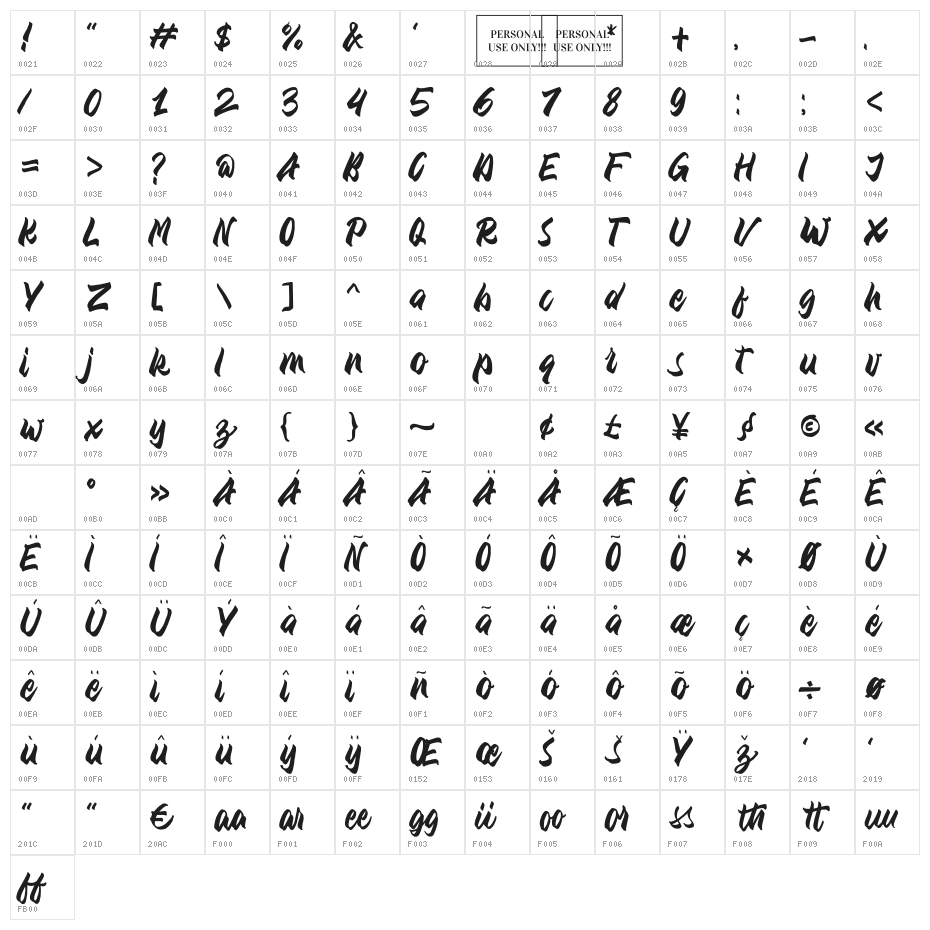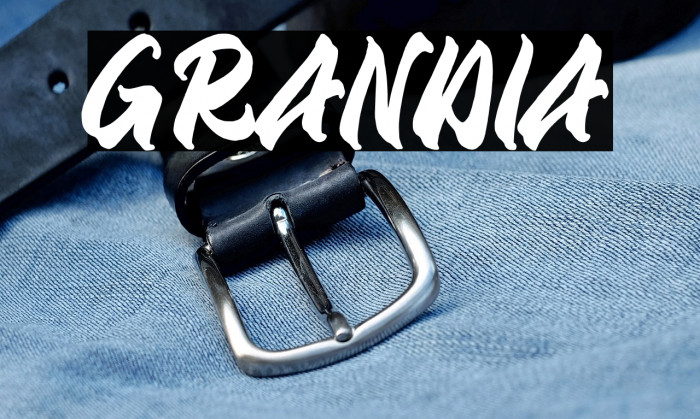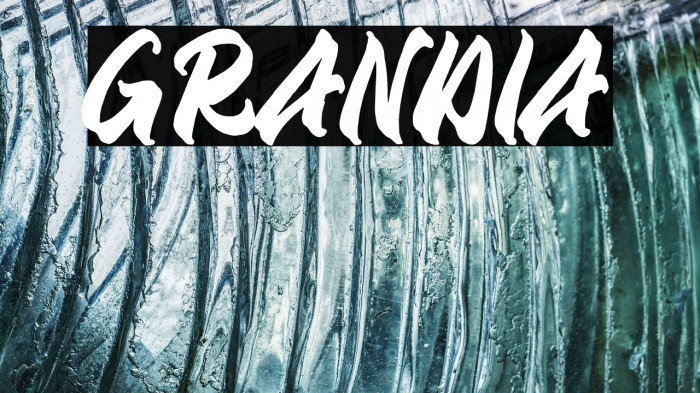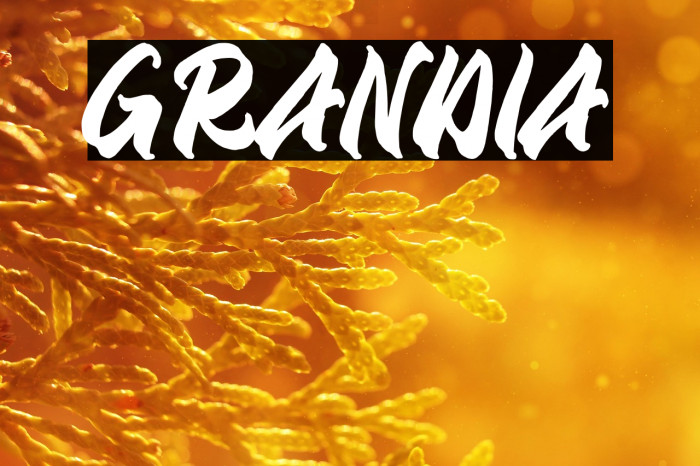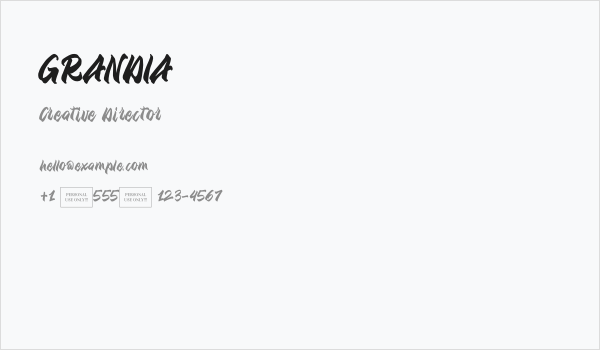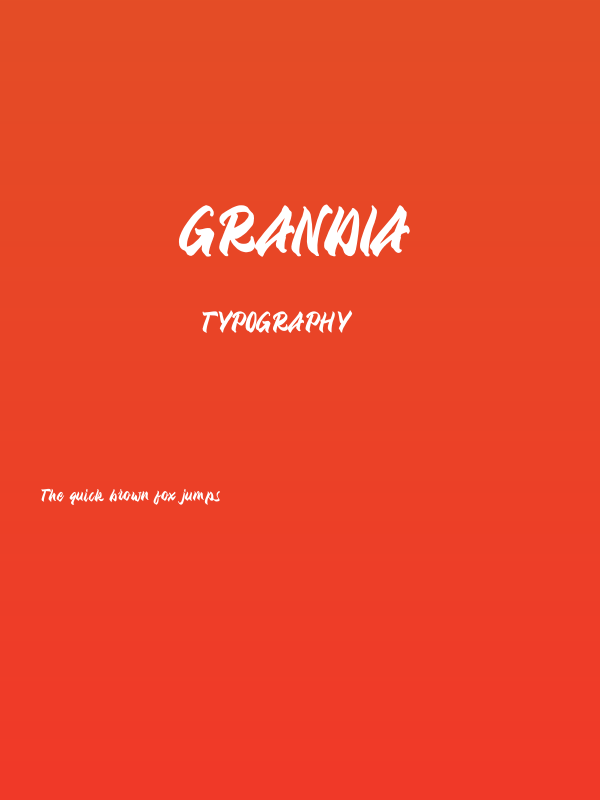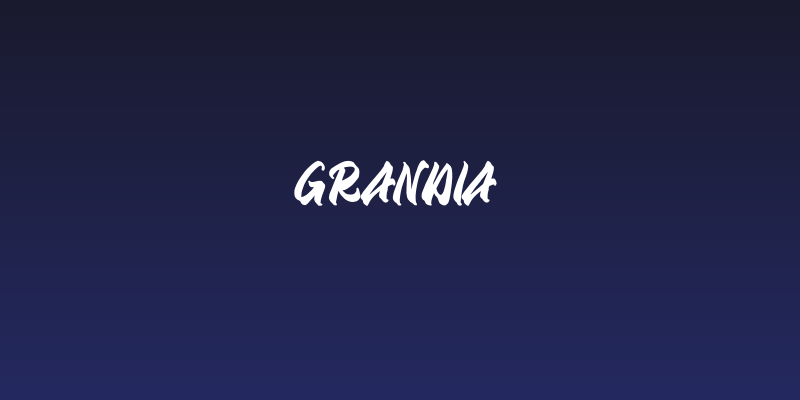
GRANDIA Font
GRANDIA Description
This font exhibits a bold and expressive handwritten style, characterized by its fluid and dynamic strokes. The letters are crafted with a sense of motion, giving them an energetic and lively appearance. The uppercase and lowercase letters maintain a consistent style, with slightly exaggerated curves and angles that add to the overall playful aesthetic. The numerals and special characters are designed to complement the alphabet, maintaining the same bold and flowing characteristics. This font is ideal for projects that require a personal and informal touch, such as invitations, greeting cards, or creative branding materials.